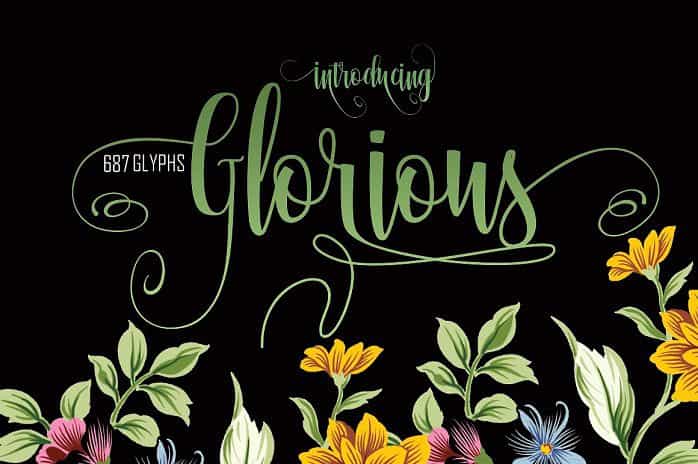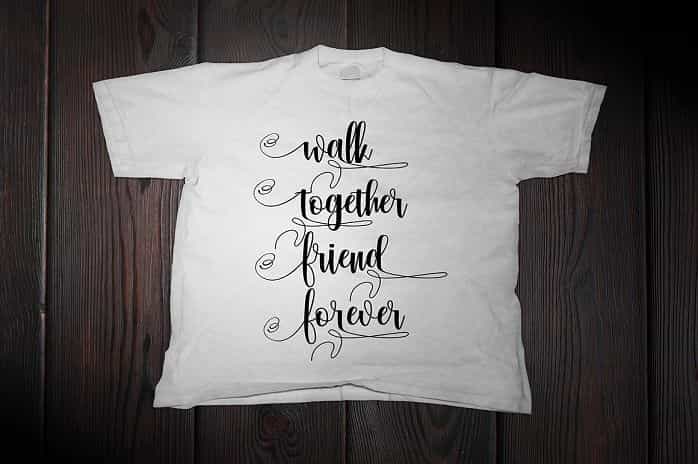
Introducing Glorious Font. It is created and posted by rtcreative86. Glorious Modern Calligraphy. This font was created by handwriting and it is a modern and unique form of calligraphy, the writing style feels very natural. Can also be used for different purposes. for instance, the headings, logos, wedding invitations, t-shirts, letterheads, signage labels, news, posters, badges and so on.